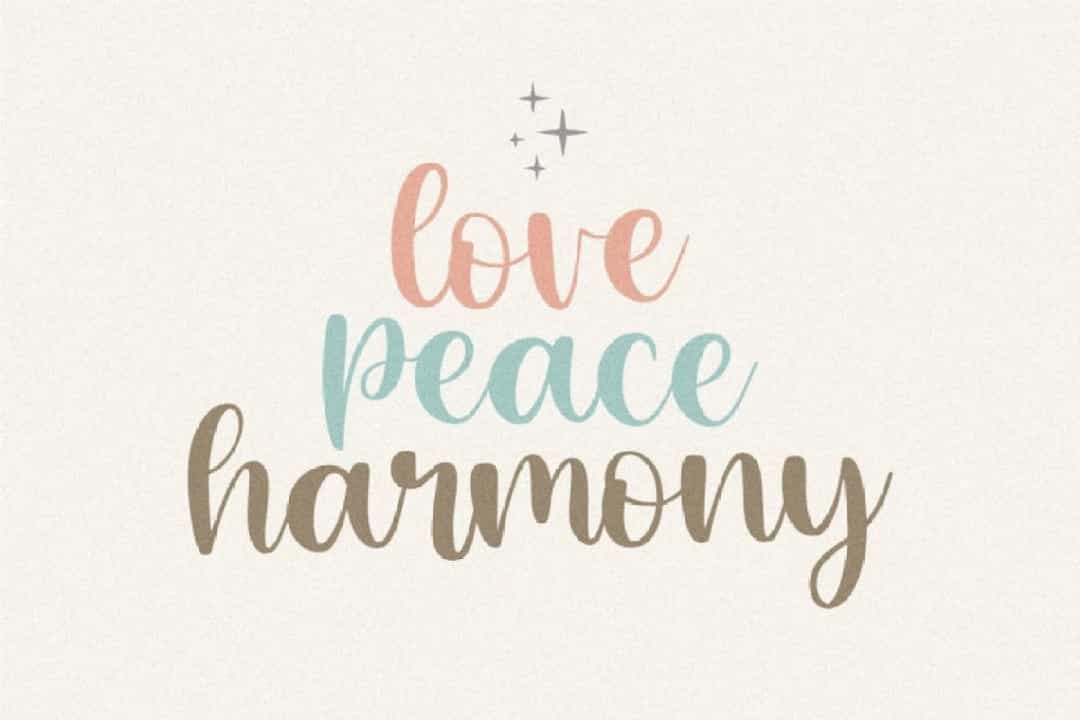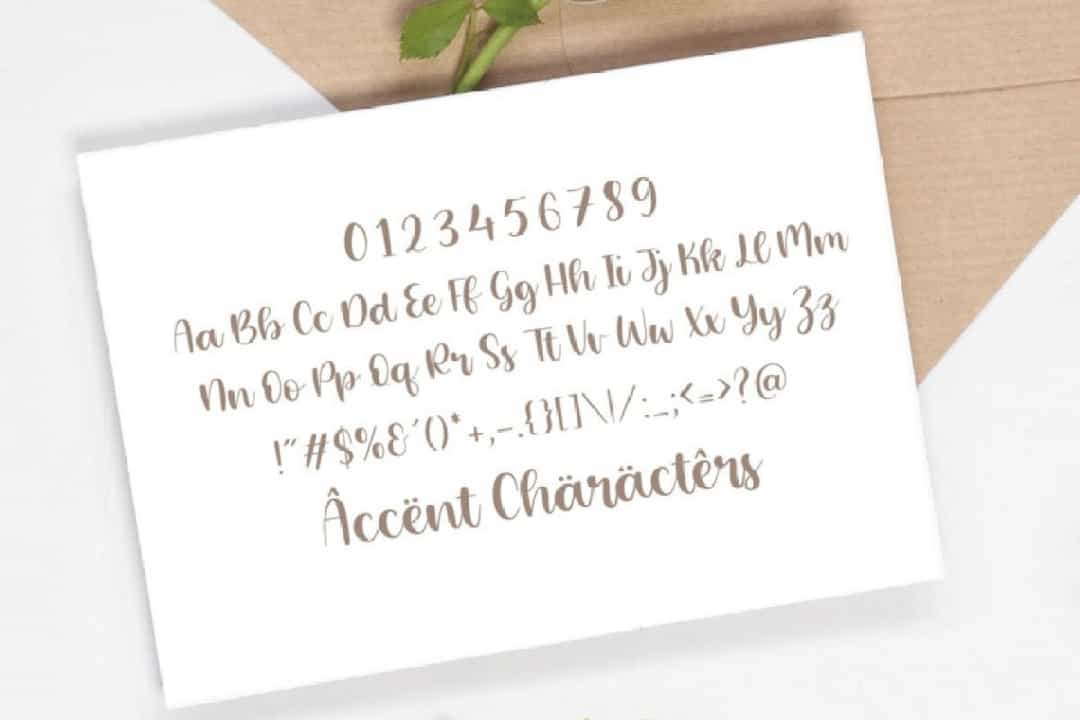
Magical Feather is an attractive modern handwritten script font, ideal for packaging products, branding projects, magazines weddings social media posts or simply writing words over any background. Compatible with TTF formats as well as multilingual support.